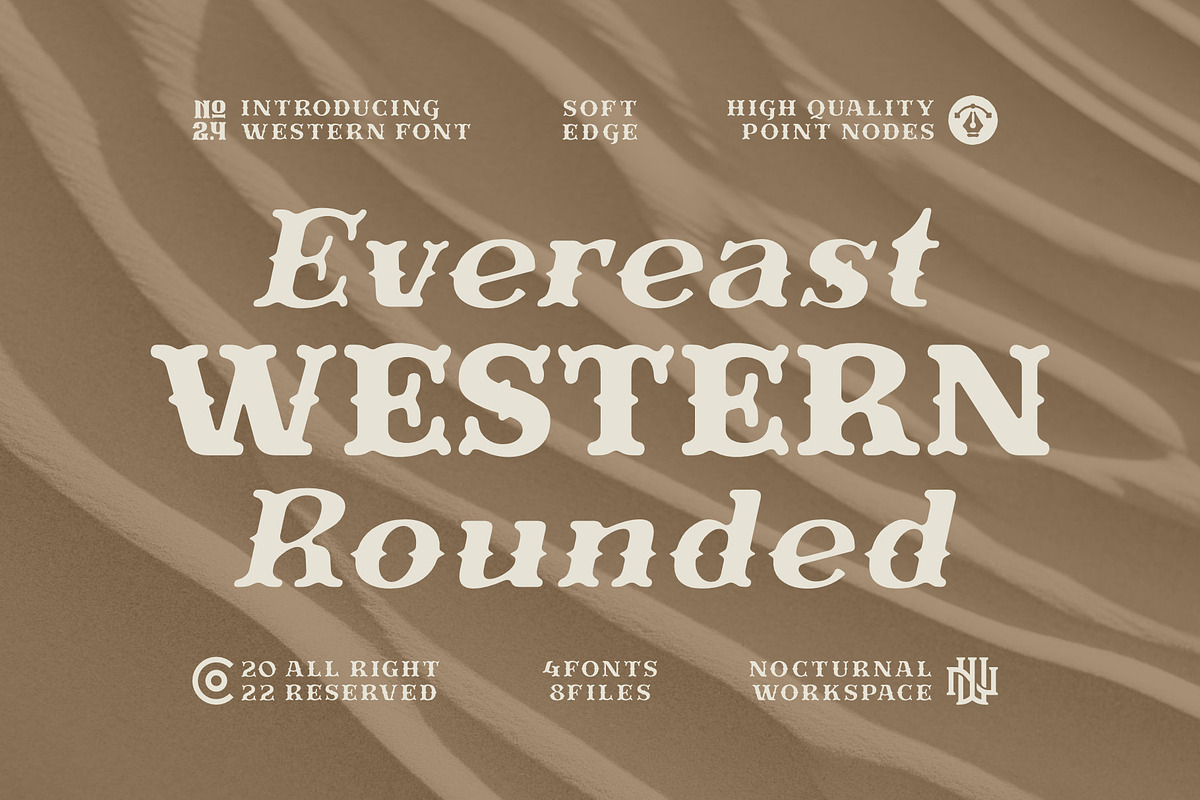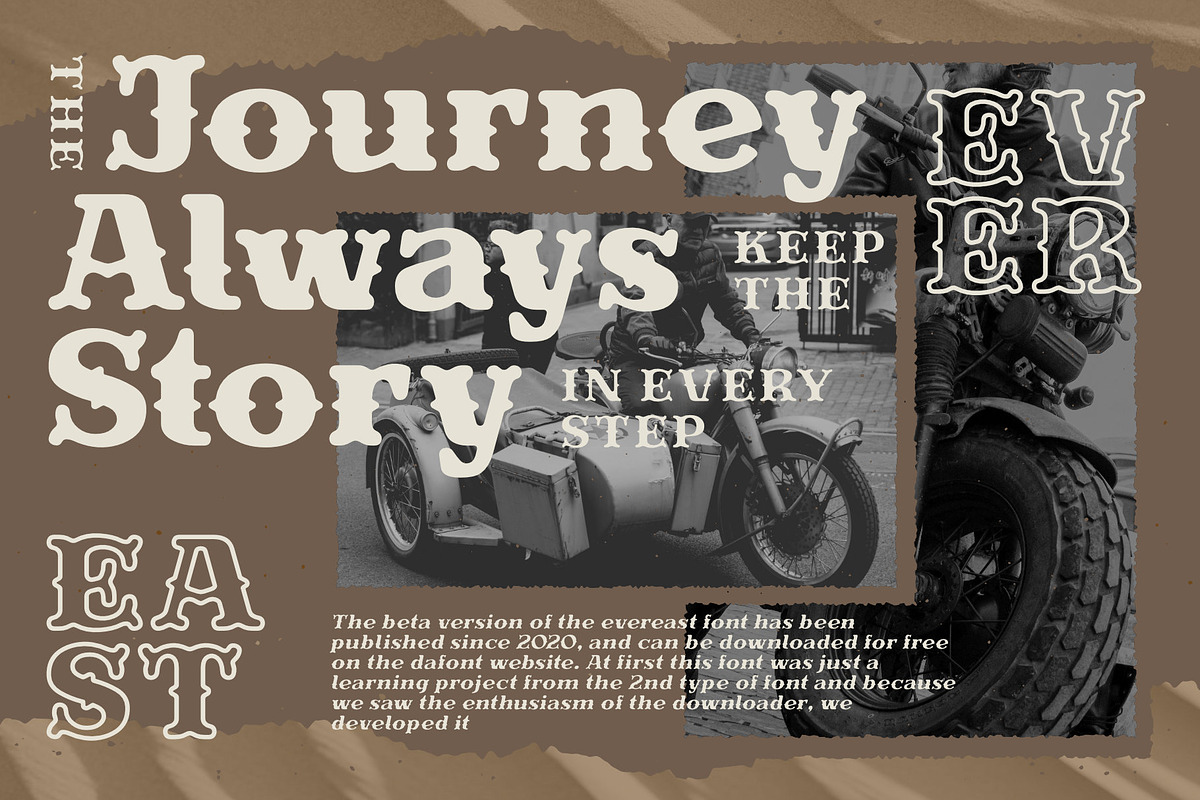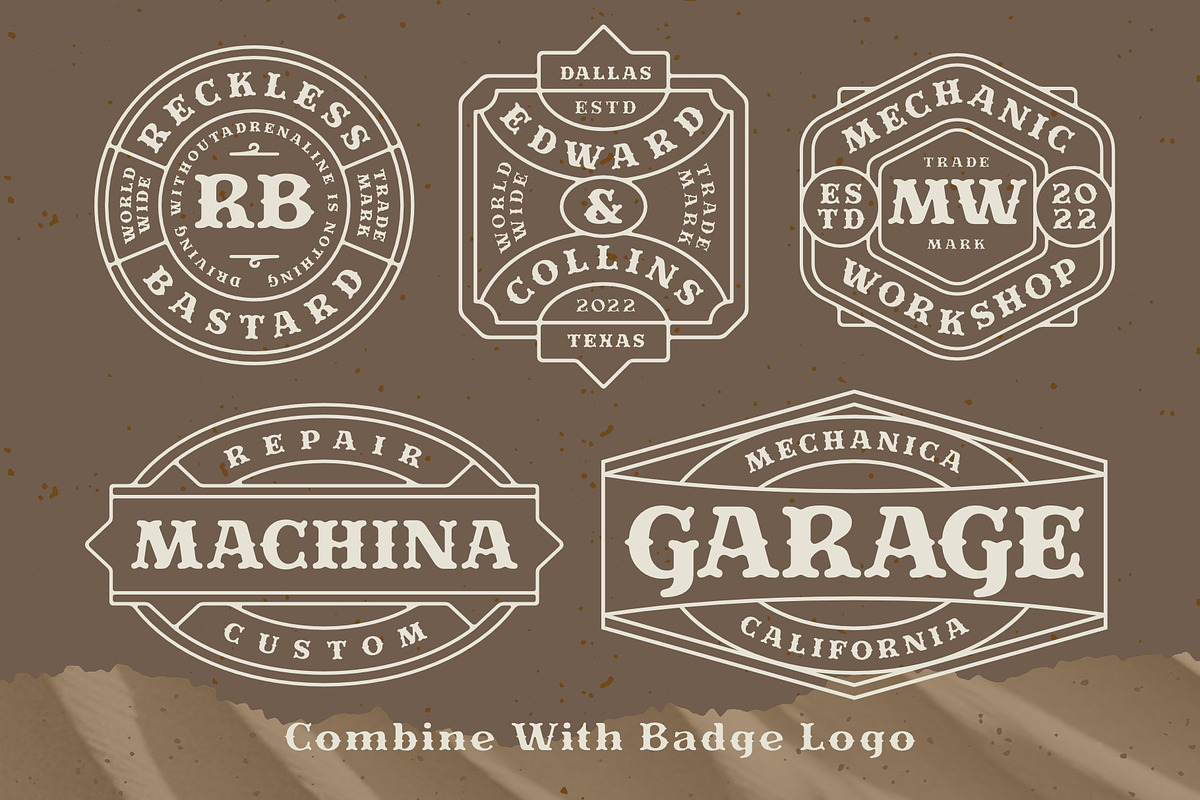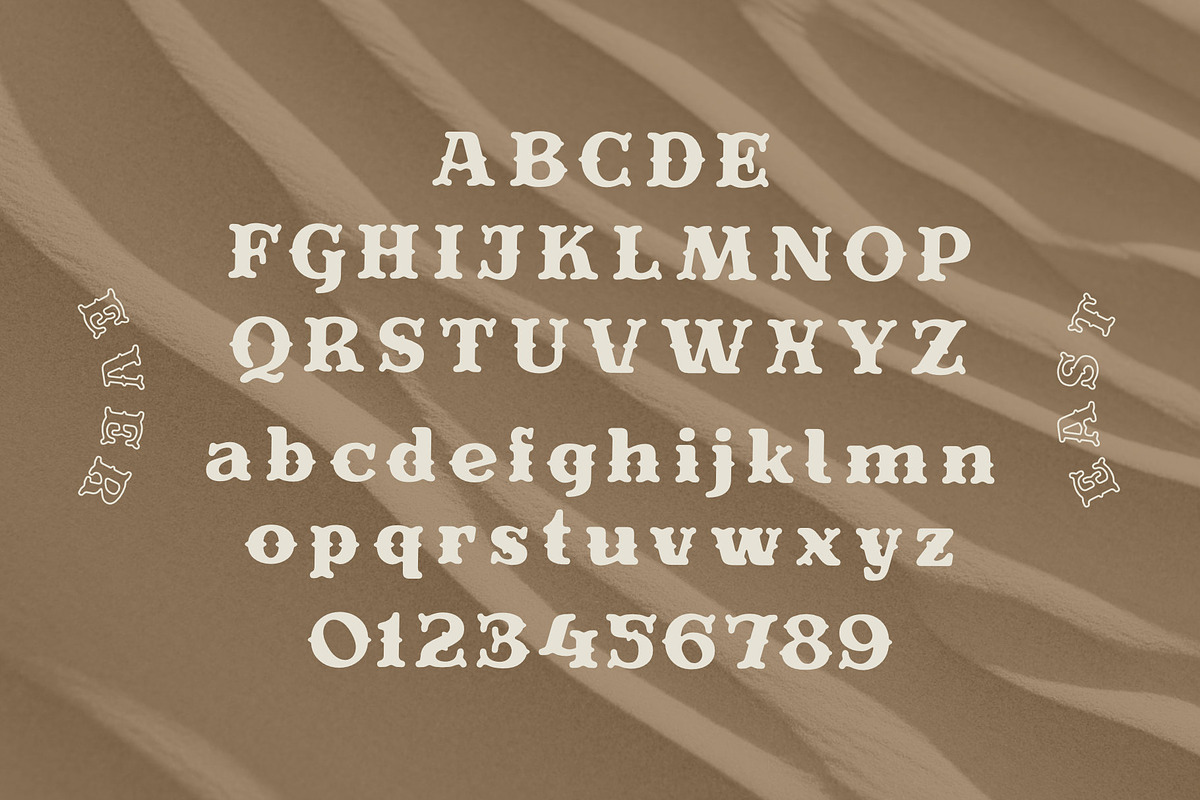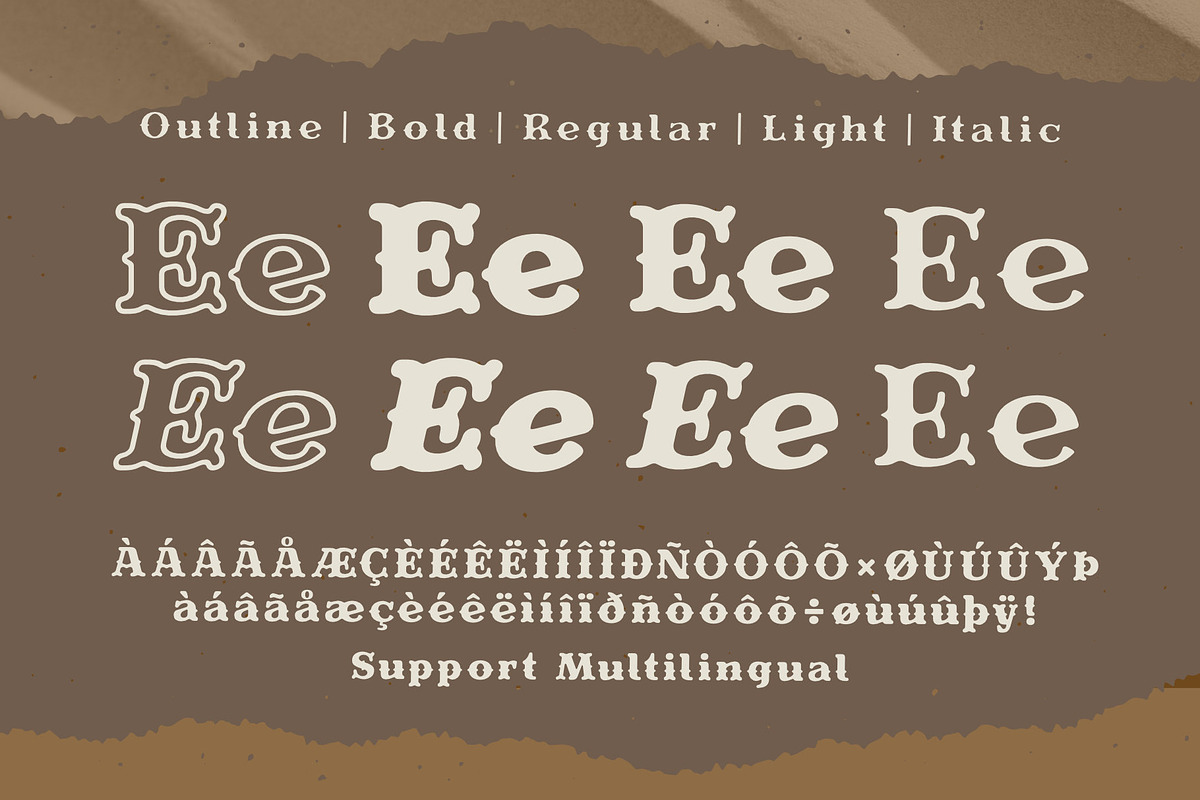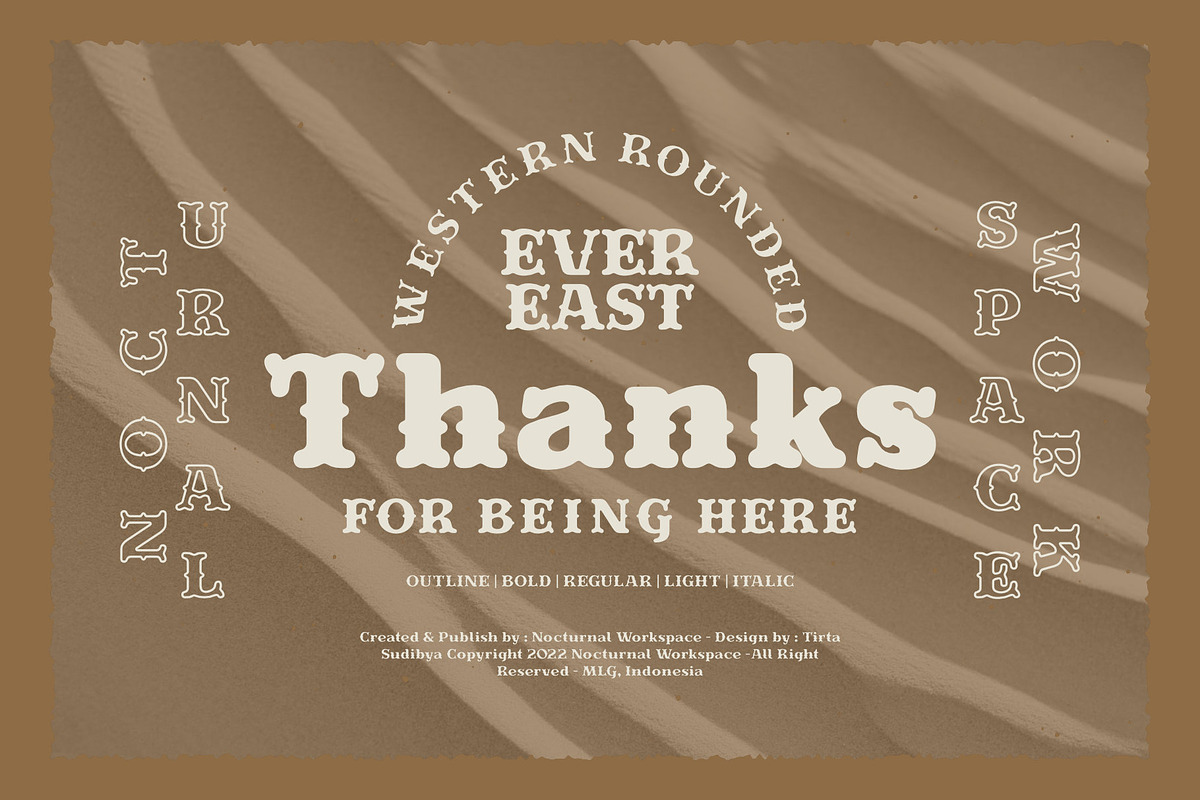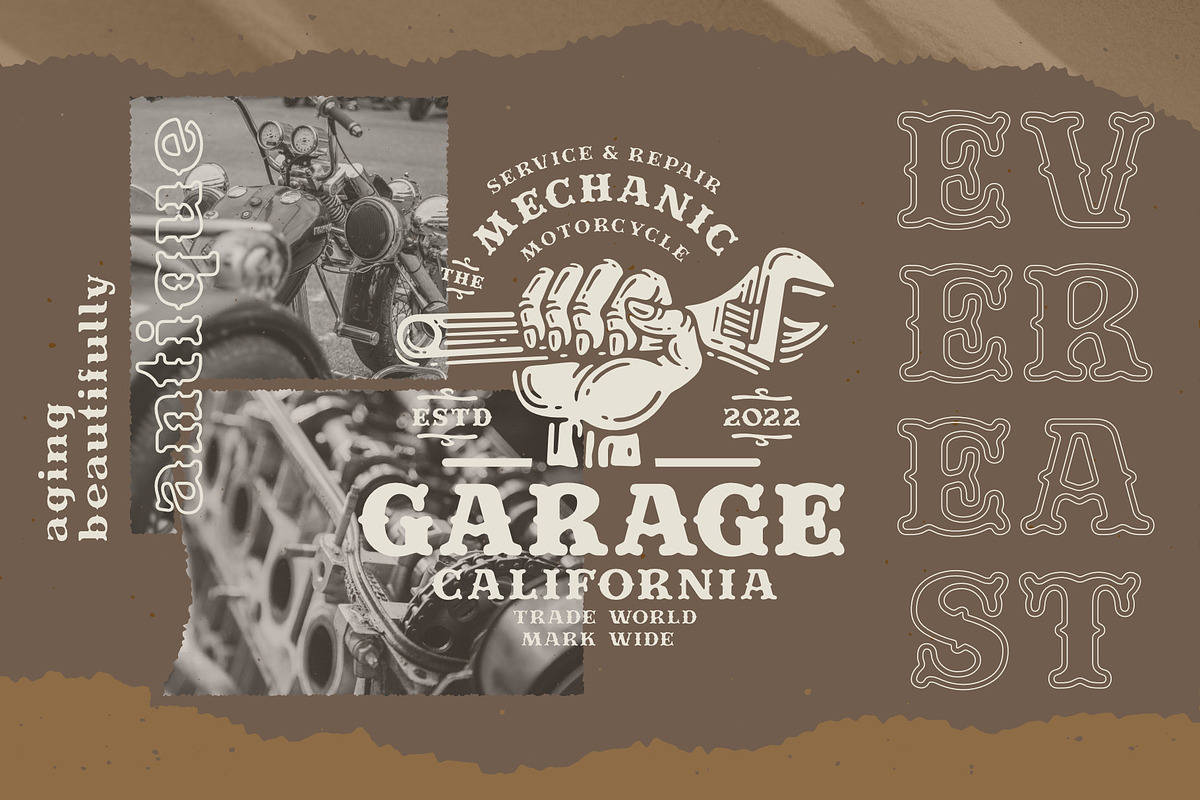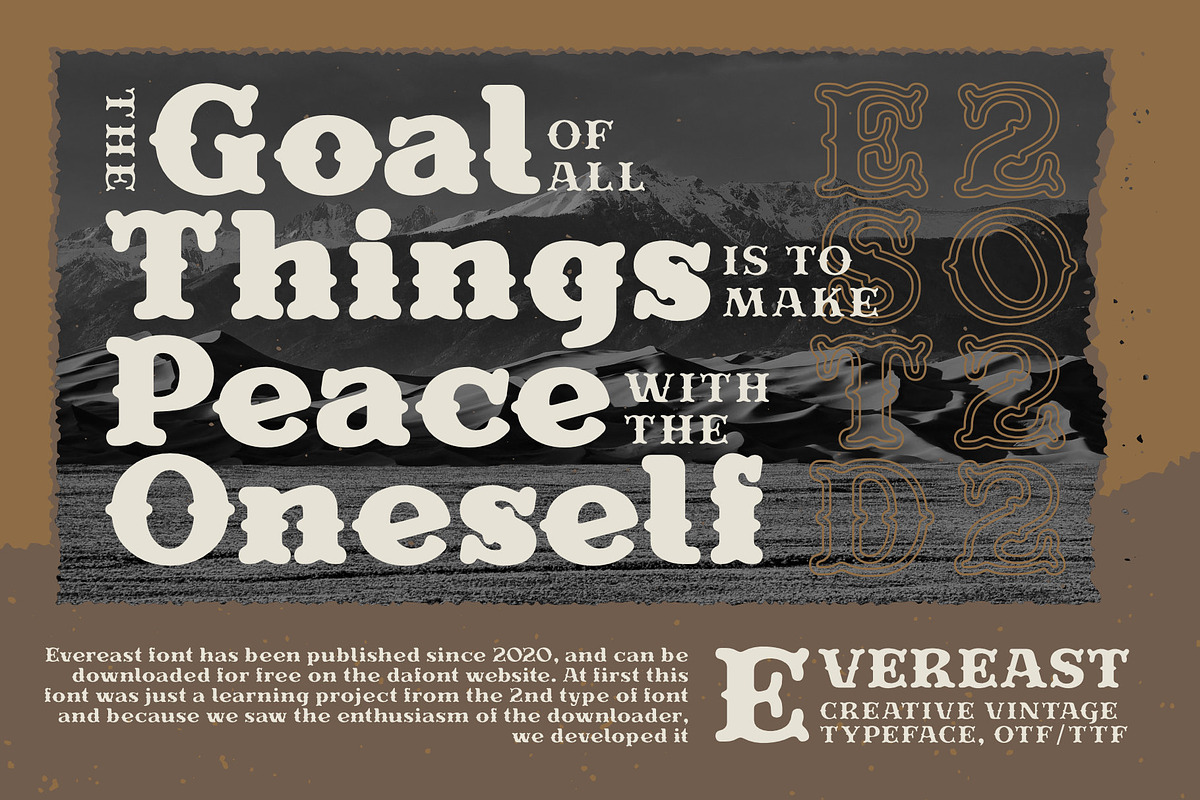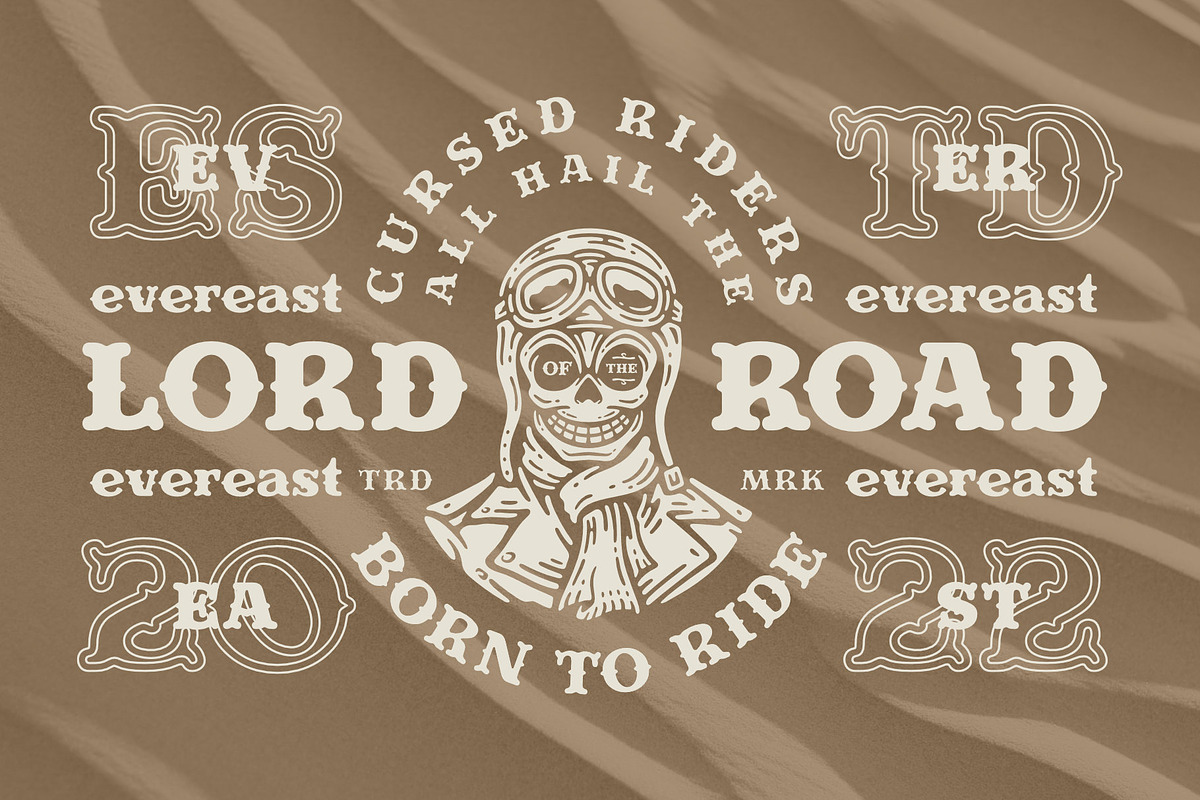
Evereast Western Rounded
The beta version of the evereast font has been published since 2020, and can be downloaded for free on the dafont website. At first this font was just a learning project from the 2nd type of font and because we saw the enthusiasm of the downloader, we developed it
- Includes a range of multilingual characters.
Evereast is suitable typeface for various purposes like logotype, signage, label, poster, dropcap, titles, letterhead, book cover and etc.